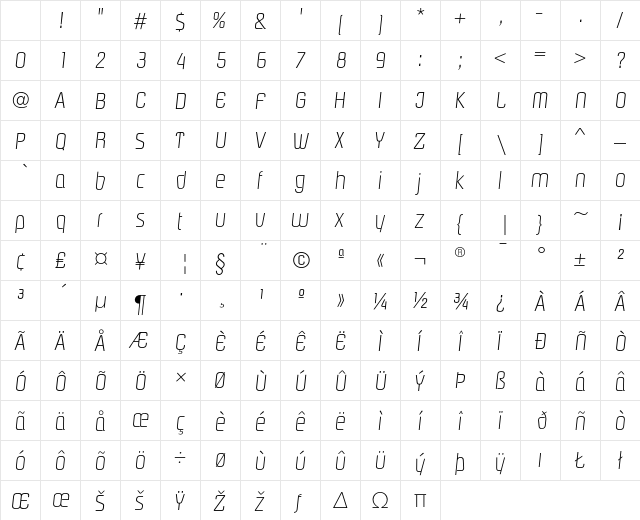
PasadenaEF is a composed and adaptable typeface that performs quietly and consistently across a wide range of design contexts. The slanted form adds forward momentum and visual energy. Its slender proportions lend an understated elegance to any composition.
Pro Tip: Use PasadenaEF for emphasis, pull quotes, and subheadings where its slanted energy can add rhythm to the layout.